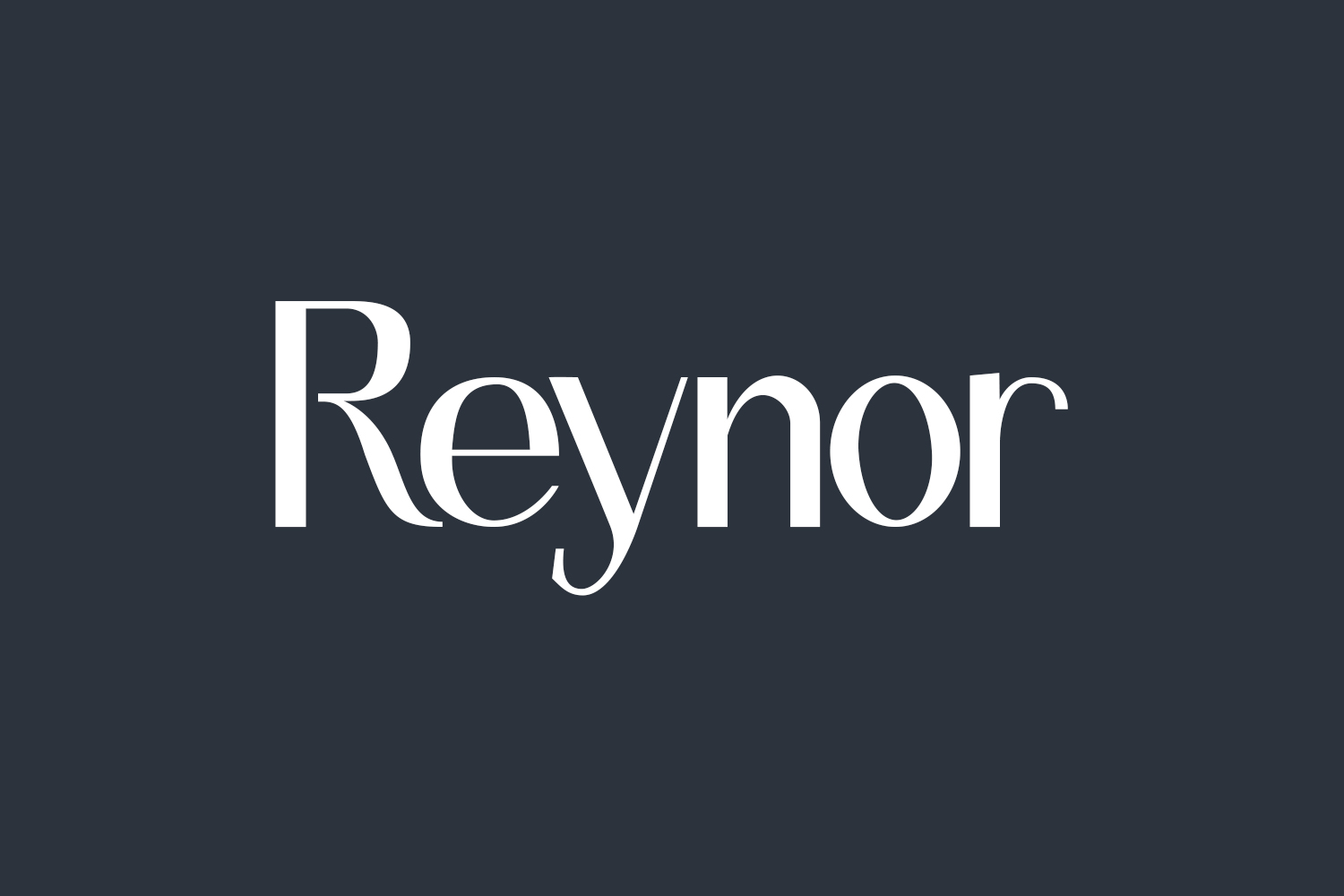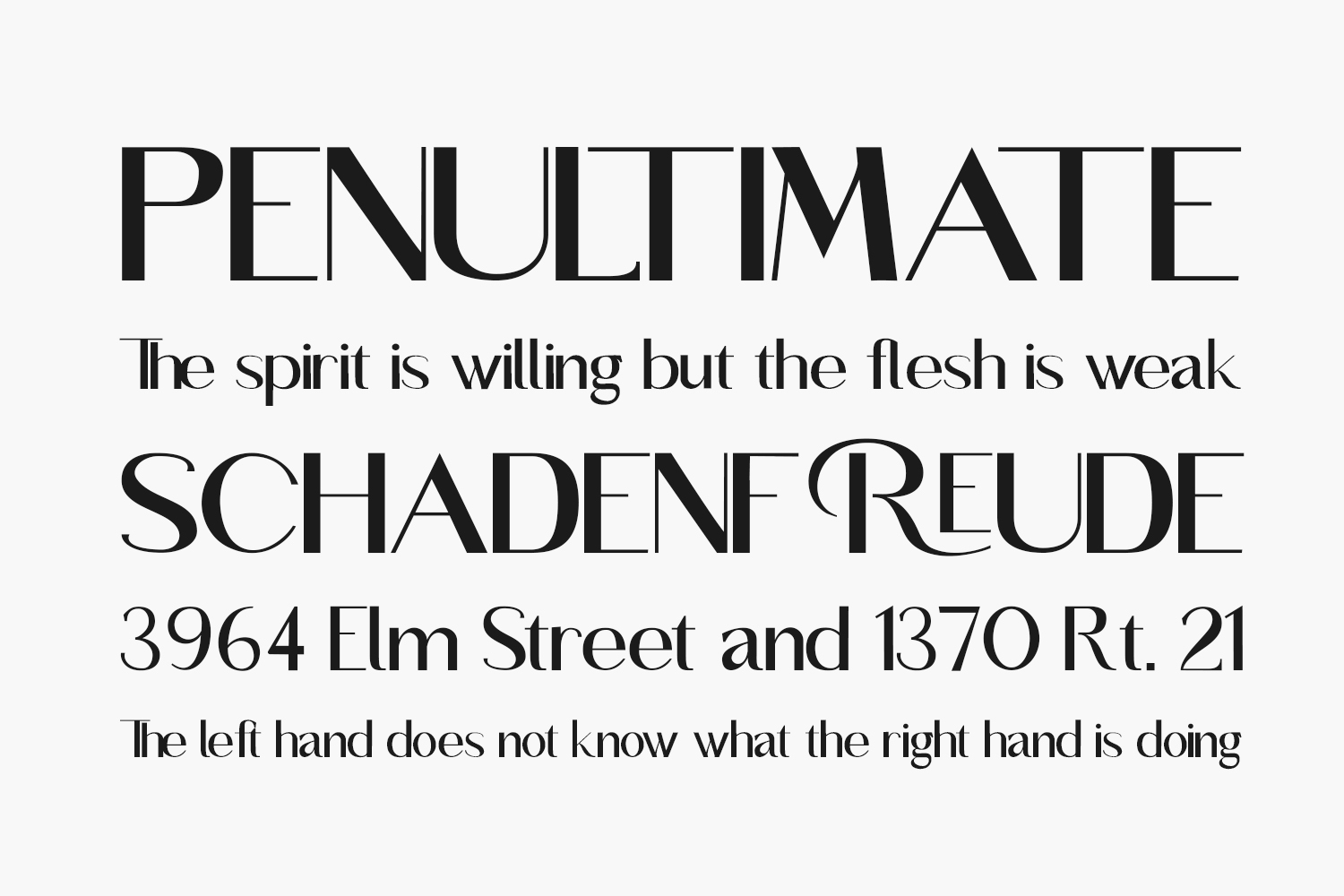
Meet Reynor Free Font Family, a sleek and fashionable serif font designed to add sophistication to your projects. Tailored for those seeking a stunning and rejuvenating aesthetic for their designs. Download the font for free if you need it for personal use or purchase the full version for commercial use.
Designed by Monolab